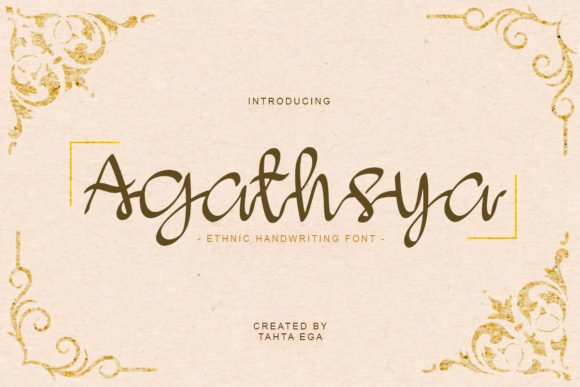
Discover the Beauty of Agathsya Font
As a designer, there’s nothing quite like the thrill of discovering a new font that sparks your creativity and sets your imagination ablaze. It’s that moment when you stumble upon a perfect combination of style, elegance, and uniqueness – and everything just falls into place. For me, that moment came when I laid eyes on the stunning Agathsya Font, a beautiful and delicate handwritten font that features ethnic characters.
With its elegant and unique design, Agathsya Font is the perfect addition to any design project. Whether you’re working on a branding campaign, creating a stunning website, or crafting a beautiful poster, this font is sure to make each of your designs look remarkable. Its versatility and charm make it a valuable asset for designers, allowing you to add a touch of sophistication and cultural depth to your work.
- Unique Characteristics: Agathsya Font features a unique blend of modern and traditional design elements, making it a versatile choice for various design projects.
Agathsya Font Review
At first glance, the Agathsya font has a unique charm to it. Its ornate details and flowing curves give it a sense of elegance ✨. I particularly appreciate how it handles longer text passages, maintaining a consistent rhythm and flow.
- ✨ Well-suited for decorative and formal applications, the Agathsya font adds a touch of sophistication to any design.
- ✨ The font’s intricate details make it perfect for use in titles, headings, and other prominent text elements.
- ✨ Its wide range of sizes and styles allows for a high degree of customization and flexibility.
However, the Agathsya font does have some limitations ⚠️. For instance, the bold weight can sometimes appear inconsistent or even cluttered, particularly at smaller font sizes.
- ⚠️ The font’s complexity may make it challenging to read at very small sizes or in low-contrast environments.
- ⚠️ The Agathsya font’s intricate details may not be suitable for body text or large blocks of text.
Overall, I find the Agathsya font to be a beautiful addition to any designer’s toolkit, but it’s essential to use it judiciously and consider its limitations. When used correctly, it can add a level of sophistication and elegance to any design.
Tips for Getting the Most Out of Agathsya Font
Experiment with different font sizes and styles to create a visually appealing design. Use Agathsya Font in combination with other fonts to create a unique and eye-catching look. Avoid using Agathsya Font in small sizes or for long blocks of text, as it can be difficult to read.
Agathsya Font is ideal for creating eye-catching headlines and titles. It’s also great for use in branding and logo design, where a unique and distinctive font can help to establish a strong brand identity. Additionally, Agathsya Font can be used in creative and artistic projects, such as typography-based designs and illustrations.